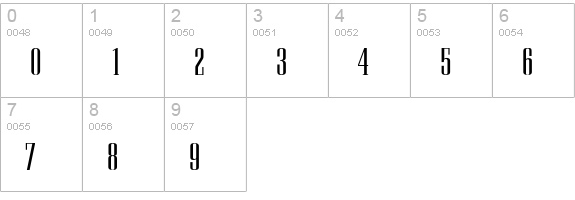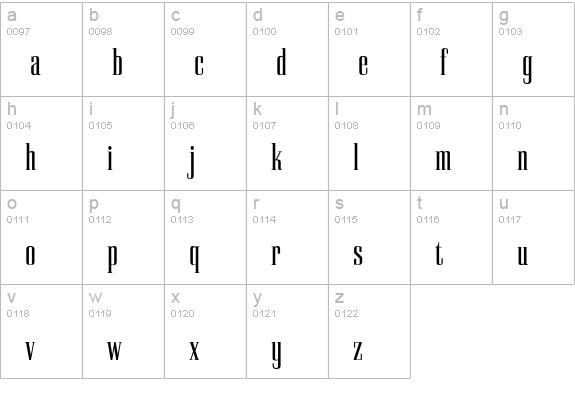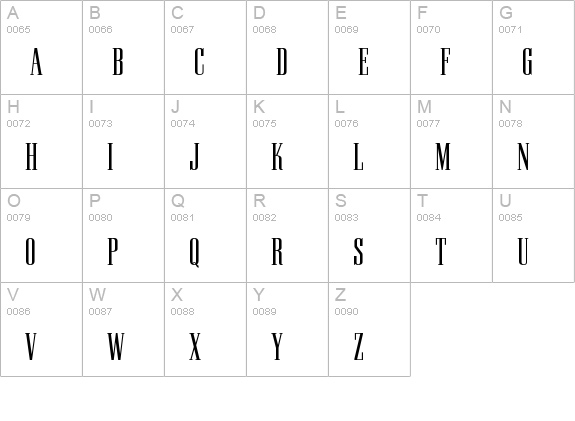
PallMallLight Font Details
PallMallLight font is a stunning display font that exudes elegance, sophistication, and a touch of modernity. Its sleek and slender letterforms are meticulously crafted, making it perfect for a wide range of design projects. This exquisite typeface effortlessly combines a classic vibe with contemporary elements, resulting in a unique and versatile font that can be used for both headings and body text. Its clean lines and balanced proportions lend a sense of professionalism and refinement to any design. With its light weight, PallMallLight font brings a delicate and airy quality to your typography. Whether used for branding, invitations, advertisements, or editorial designs, this font adds a touch of sophistication and grace to any project. One of the best parts about PallMallLight font is that it is free! Yes, you read that right. This exceptional font is freely available to download at FontsMarket.com. It's a fantastic opportunity to add a high-quality font to your collection without any cost. So why wait? Enhance your designs with the elegance and versatility of PallMallLight font. Download it for free at FontsMarket.com and let your creativity soar to new heights.